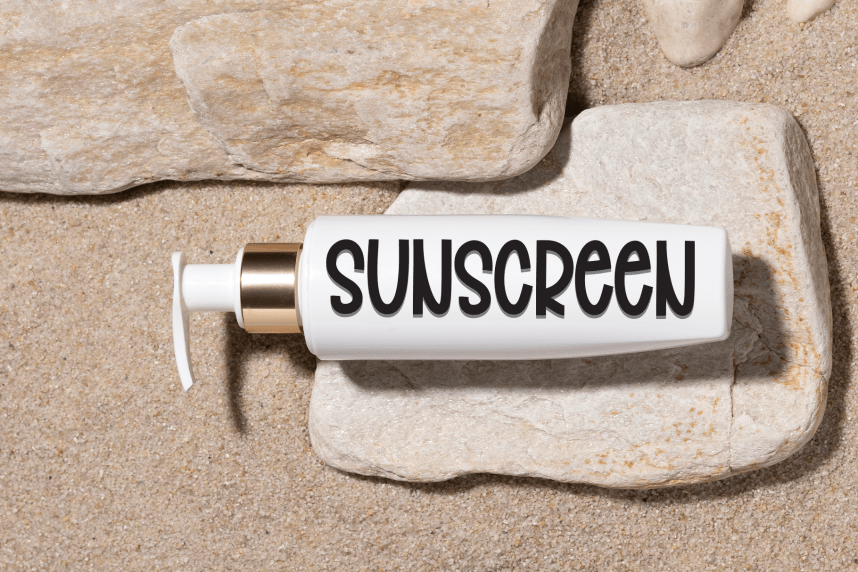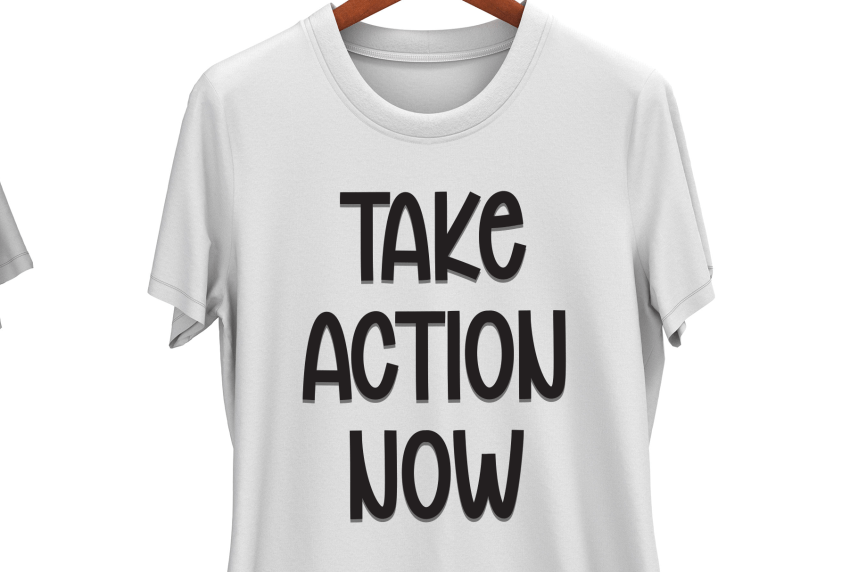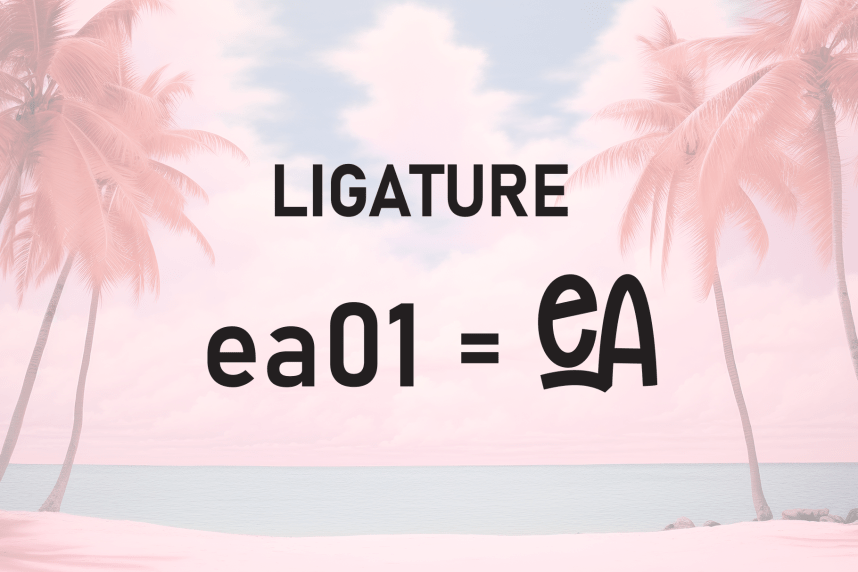
Pink Beach – New Style And Unique Font
Pink Beach – New Style And Unique Font is a sweet and friendly handwritten display font. Cute and fun, this font is ideal for writing wedding invitations, cards, or any other design that might need a playful touch!